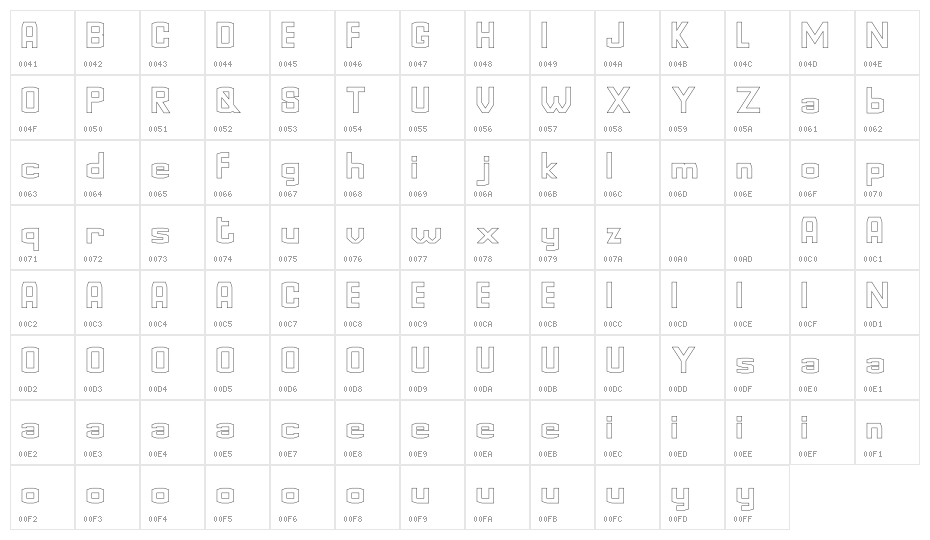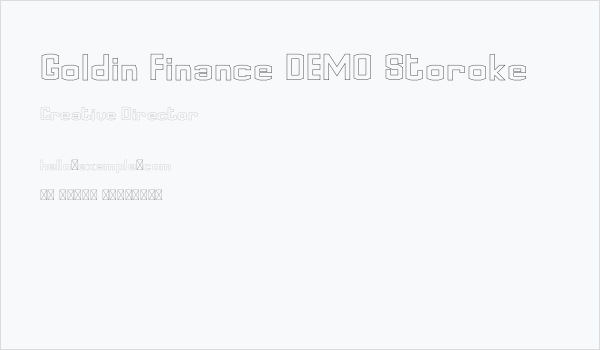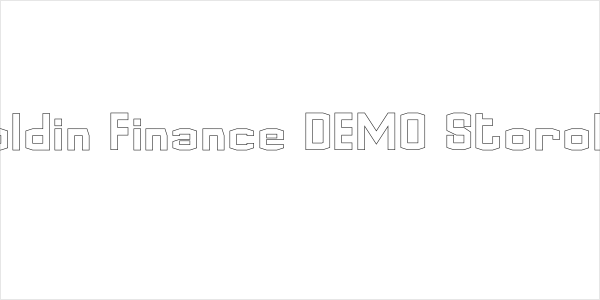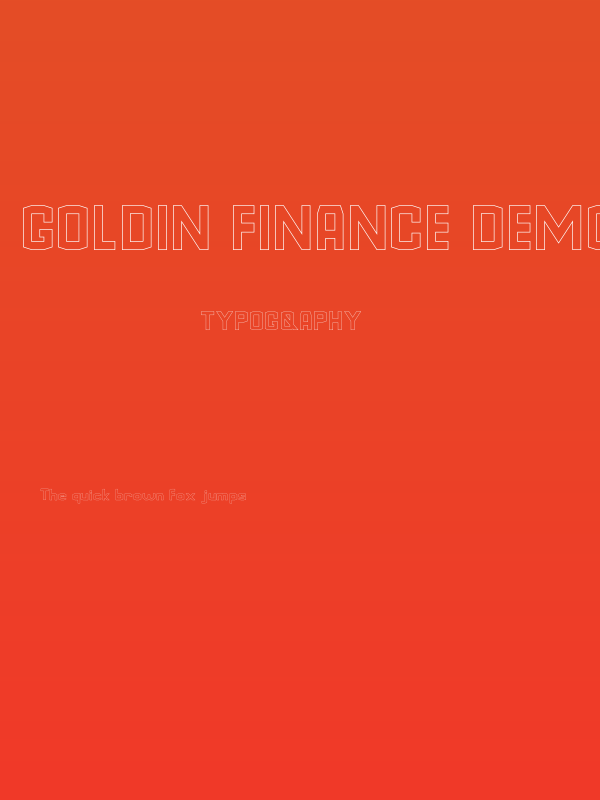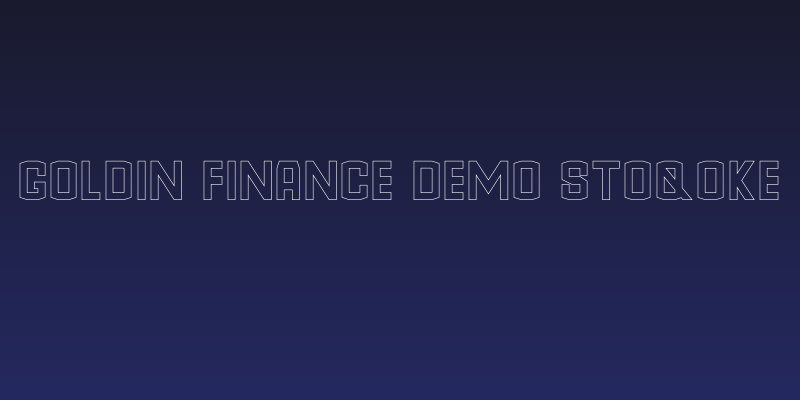
Goldin Finance DEMO Storoke Font
Goldin Finance DEMO Storoke Description
This font features a geometric, outlined style with a modern and futuristic appearance. The uppercase and lowercase letters are constructed with straight lines and sharp angles, creating a sense of precision and clarity. The characters have a uniform stroke width, contributing to a cohesive and structured look. The design is minimalistic, with no additional embellishments, allowing the form of each letter to stand out. The numbers and special characters follow the same design principles, ensuring consistency across all elements. This font is ideal for projects that require a clean and contemporary aesthetic.
| Proposed Projects | Ideal for tech branding, modern posters, digital interfaces, and futuristic-themed designs. |